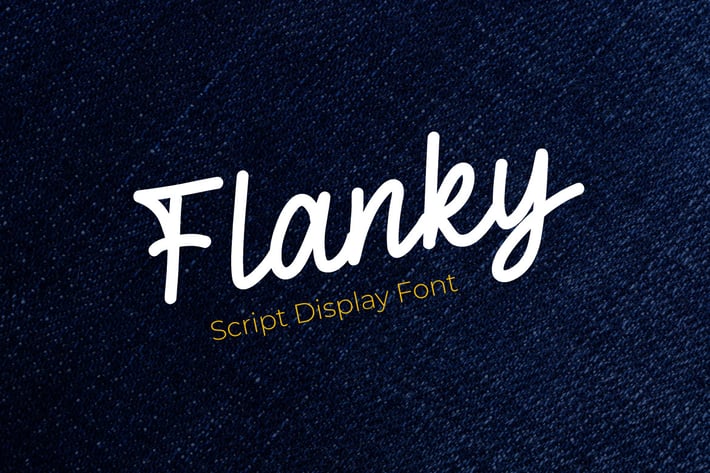
Flanky - Script Display Font
Flanky is a captivating script display font that blends elegance with modern flair, perfect for adding a sophisticated touch to your creative projects. This font features graceful curves and intricate details, making it an excellent choice for branding, invitations, logos, and more. With its versatile style, Flanky enhances the visual appeal of any design, ensuring your work stands out.